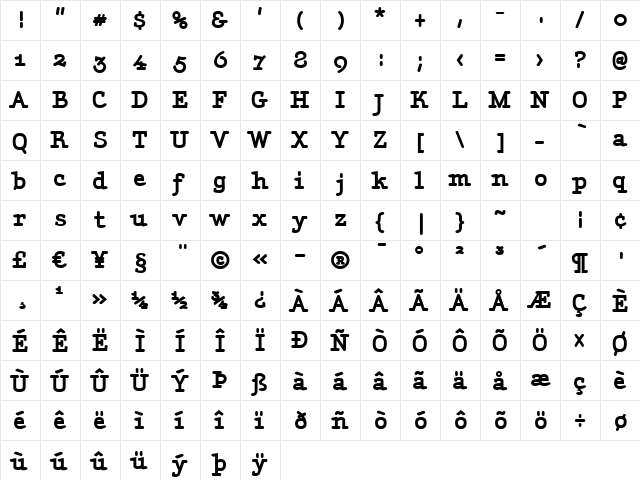
AmintaBold Regular
Design Context for AmintaBold Typeface
AmintaBold is a composed and adaptable typeface that performs quietly and consistently across a wide range of design contexts. Its bold stroke weight gives it real presence on the page.